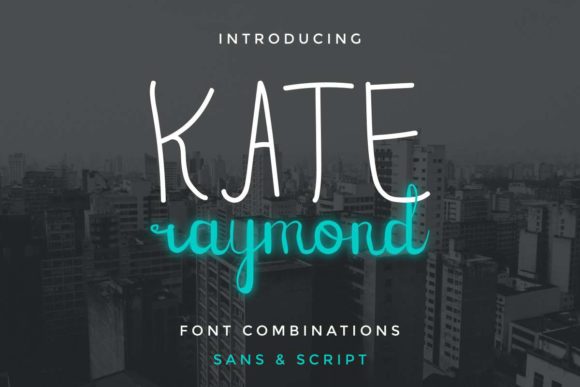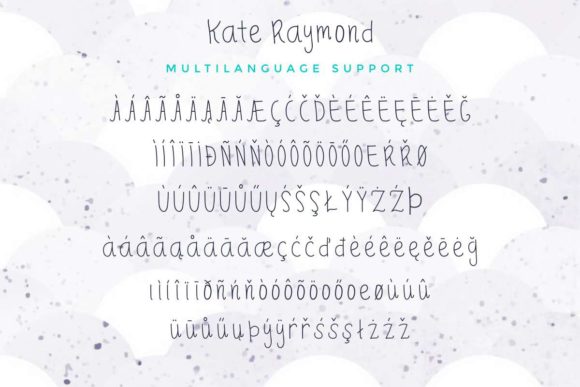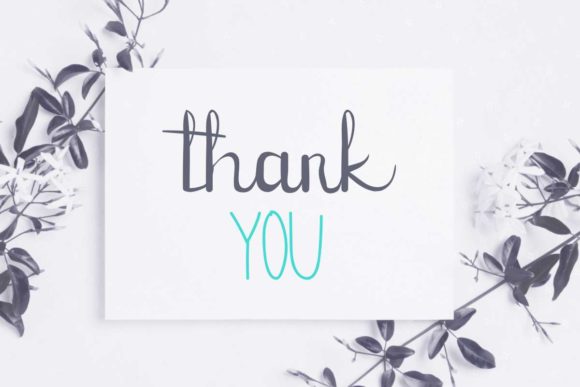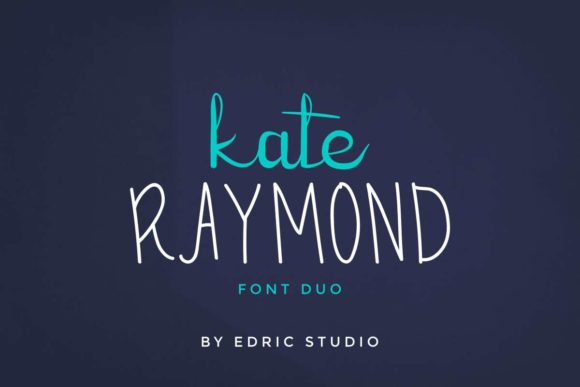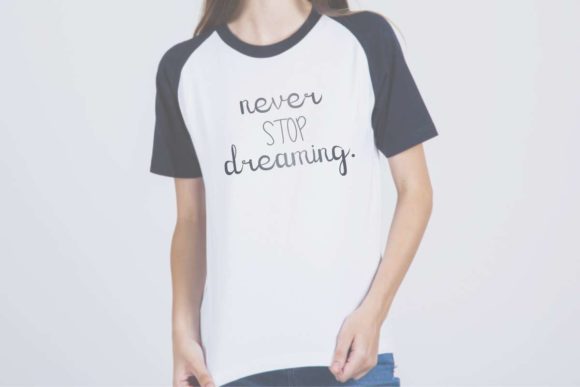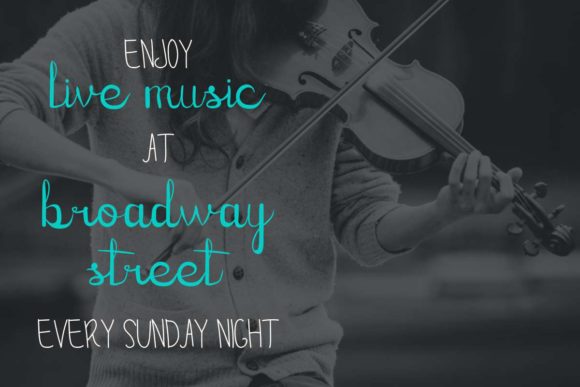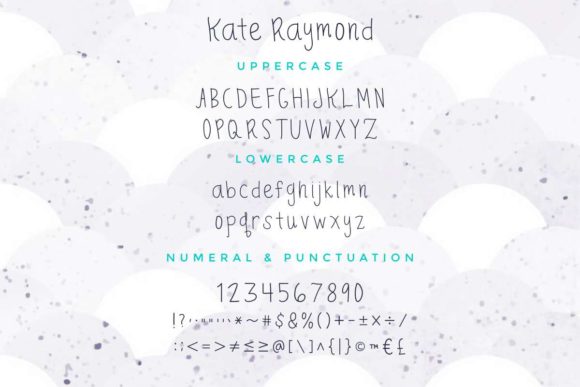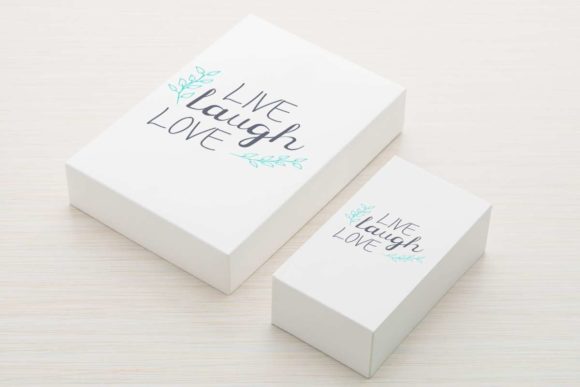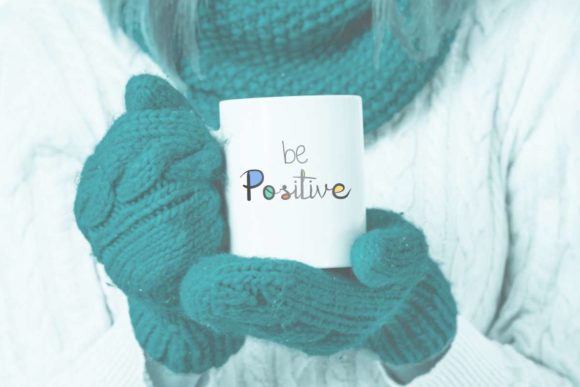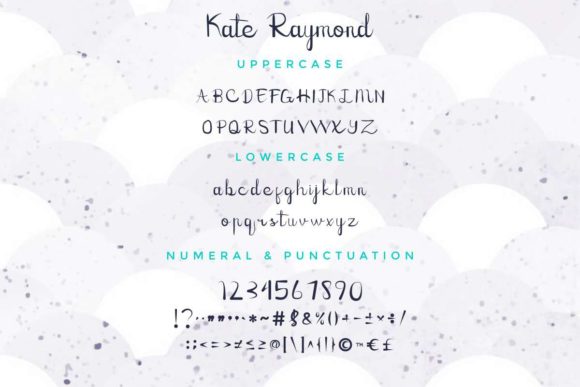
Kate Raymond Font
About Kate Raymond Font
Kate Raymond font duo is a match made in heaven, the monoline style perfectly complements the script’s style. Combining these two fonts on your next design will give a modern and cute feel.